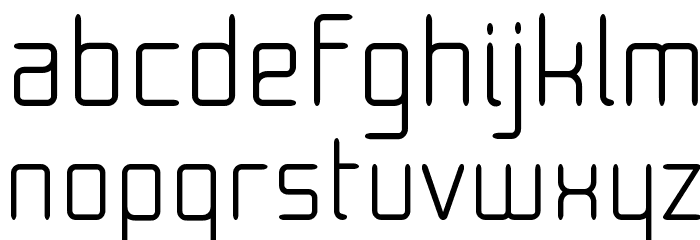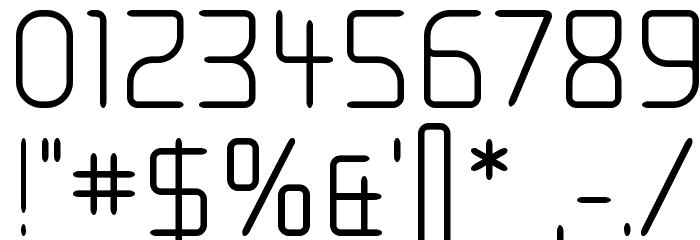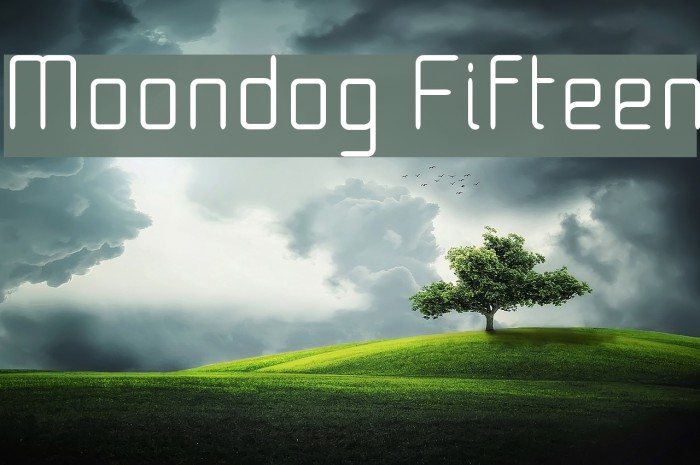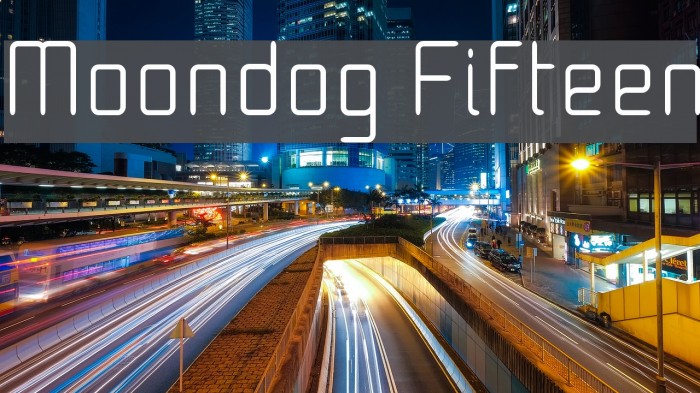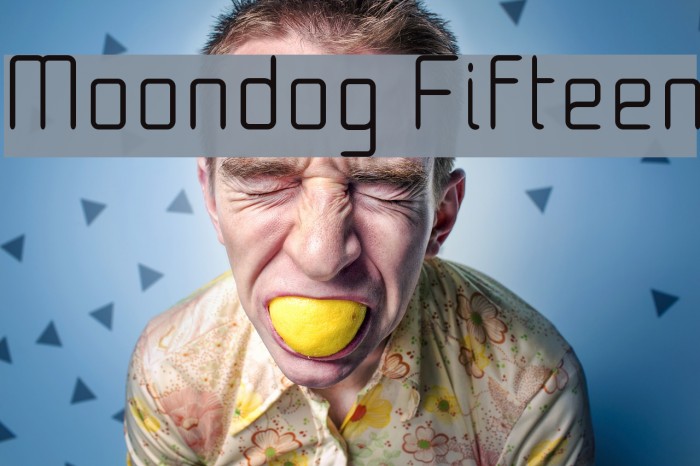
Moondog Fifteen Font
This font features a modern, geometric design with rounded edges and a clean, minimalist aesthetic. The characters are uniform in width, giving it a monospaced appearance, although it is not strictly monospaced. The uppercase letters are tall and narrow, while the lowercase letters maintain a consistent height, contributing to a balanced and harmonious look. The numerals are clear and distinct, matching the overall style of the alphabet. Special characters are well-integrated, maintaining the font's sleek and streamlined appearance. This font is highly legible, making it suitable for a variety of applications where clarity and modernity are desired.
A modern, geometric font with rounded edges and a minimalist design.
- Proposed Projects: Ideal for tech branding, digital interfaces, modern advertising, and minimalist design projects.
- Use Case: Logos, digital interfaces, tech branding